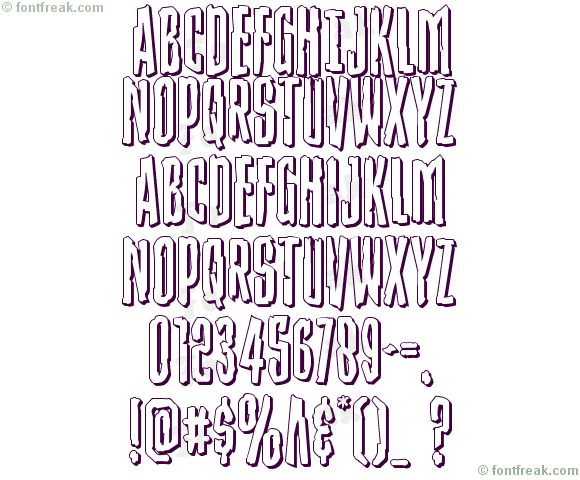
Stranger Danger Rotated
About Stranger Danger Rotated
Stranger Danger Rotated by Daniel Zadorozny is a striking display font that falls under the decorative category, designed to grab attention and evoke a sense of intrigue. This unique typeface features a condensed and italic style, characterized by its staggered and disheveled appearance. The bold stroke weight and distinctive 3D leftalic effect create a sense of depth, making it visually captivating and memorable. With a playful, almost chaotic aesthetic, this font is perfect for projects that require a touch of whimsy or an edgy vibe.
The versatile nature of the Stranger Danger Rotated font makes it suitable for a variety of applications. It can be effectively used for movie posters, where its dramatic flair can amplify the film’s theme. Additionally, this font is a great choice for event promotions, especially in the realms of music festivals or art exhibitions, where a creative approach is appreciated. Restaurant menus that aim for a quirky or modern feel can also benefit from its unique style, enticing patrons with its visual appeal. Furthermore, graphic designers seeking to create eye-catching social media graphics will find this font to be an excellent asset for capturing audience attention.
Targeted towards graphic designers, small business owners, and content creators, the Stranger Danger Rotated font free download offers a fresh and unconventional option for those looking to stand out. Its unique design enables users to express creativity while maintaining readability, making it a versatile choice for various projects. What truly sets this font apart is its ability to convey personality and excitement, ensuring that any message it carries is not only seen but felt. With its engaging style, Stranger Danger Rotated is an exceptional addition to any typographic toolkit.